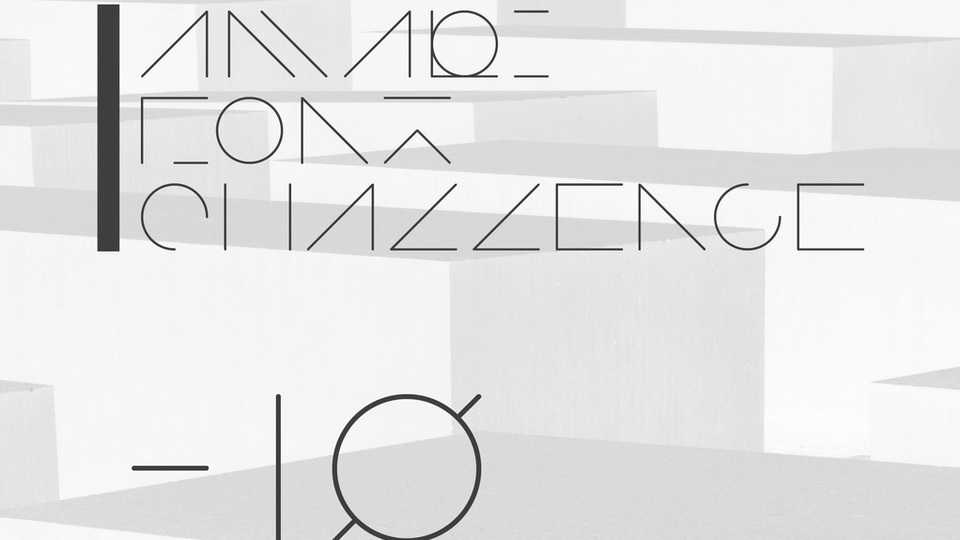
Download Amari Font 40/100, a clean and minimalist display typeface based on geometric shapes and modules. With its futuristic look the font is great for posters, headlines, logos, tech and typography projects.
Designer: Amari Design